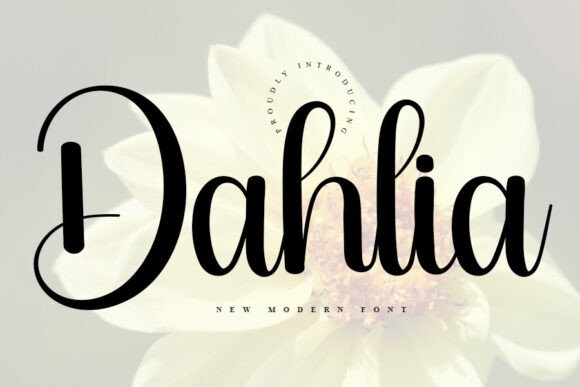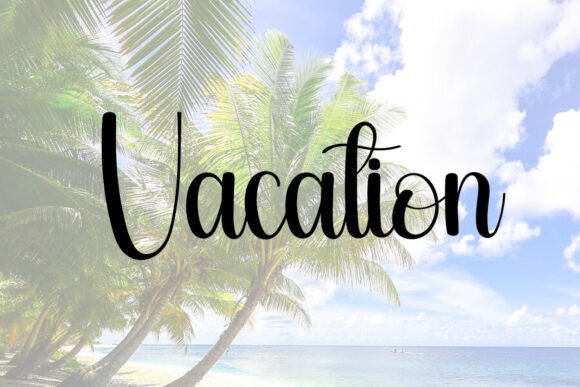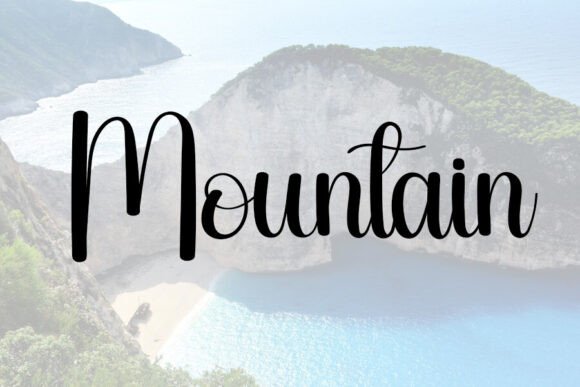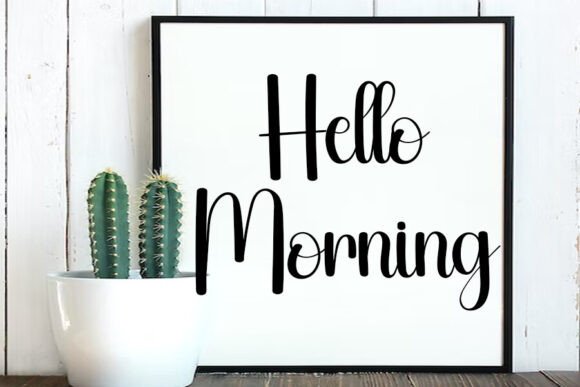
Dahlia Font
About the Dahlia Font
The wait is over! The incredible Dahlia Font is now available for your design toolkit. Unveiling Dahlia, a captivatingly designed font, mastering the art of revolutionizing your designs and casting a bewitching spell on your audience. This adaptable typeface radiates an essence of invigorating aesthetics, rendering it as an ideal selection for a multitude of design applications. Be it for artfully designed YouTube banners, extraordinarily unique logo mockups catering to eminent clientele, tastefully curated wedding invitations, or inimitable ID cards, Dahlia exists as your perfect creative accomplice. But the magic doesn’t end there; Dahlia is also your ideal mate for sophisticated flyer designs and handmade craft ventures. This font serves as the manifestation of elegant simplicity and unparalleled uniqueness, infusing an exclusive allure to your designs. Incorporating Dahlia in your business branding missions can heighten its artistic quotient, fostering growth and innovation. Step into a universe of limitless creativity with Dahlia, and leave an indelible mark with every impression!